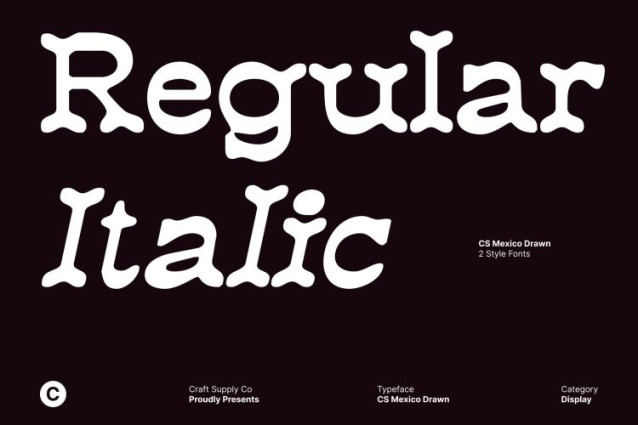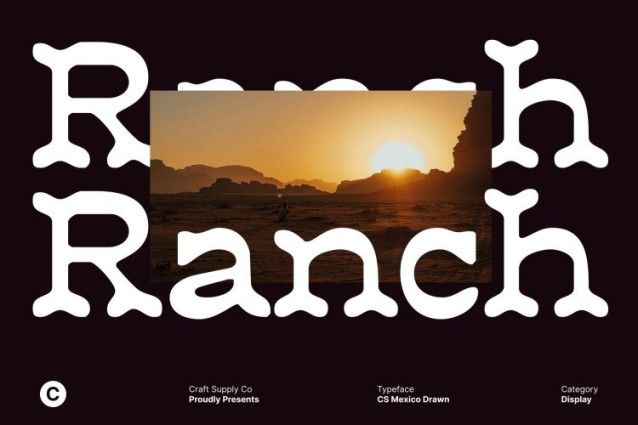
CS Mexico Drawn Font
CS Mexico Drawn Font This is a decorative serif typeface inspired by traditional vintage Mexican design and the classic elegance of Tuscan serif styles. This font celebrates rich cultural heritage through expressive letterforms that feel historical, ornamental, and full of character. Its design evokes old signage, handcrafted prints, and classic Mexican typography, delivering a strong sense of authenticity and tradition.
Tuscan Structure with Ornamental Detail
Built on Tuscan serif foundations, features split serifs, decorative terminals, and confident proportions that give each character a bold yet refined presence. These distinctive elements add visual interest and a classic decorative flair, making the font ideal for standout typography that feels both artistic and timeless.
Hand-Drawn Effect for Soft, Natural Expression
The drawn texture brings warmth and humanity to the design. Subtle imperfections soften the bold Tuscan structure, creating natural strokes that feel handcrafted and expressive. This hand-drawn effect enhances the artistic quality of the font, making it feel alive, approachable, and rich with personality rather than rigid or mechanical.
Perfect for Heritage-Inspired and Decorative Projects
This font is ideal for branding, packaging, posters, labels, cultural events, restaurant identities, and editorial designs that want to express history, authenticity, and decorative beauty. Its strong cultural voice combined with a soft drawn finish allows designers to create visuals that feel meaningful, expressive, and deeply rooted in tradition while remaining visually engaging and distinctive.